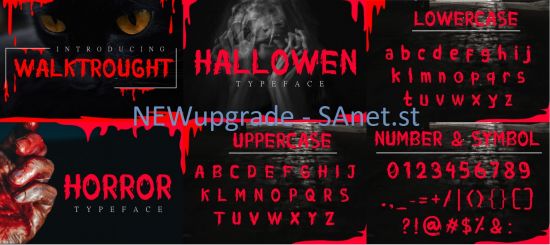
DesignOptimal - Walktrought Font
DesignOptimal.com - Walktrought Font
Walktrought feels spooky, scary and extremely haunting. This display font was made to elevate any Horror- or Halloween projects!